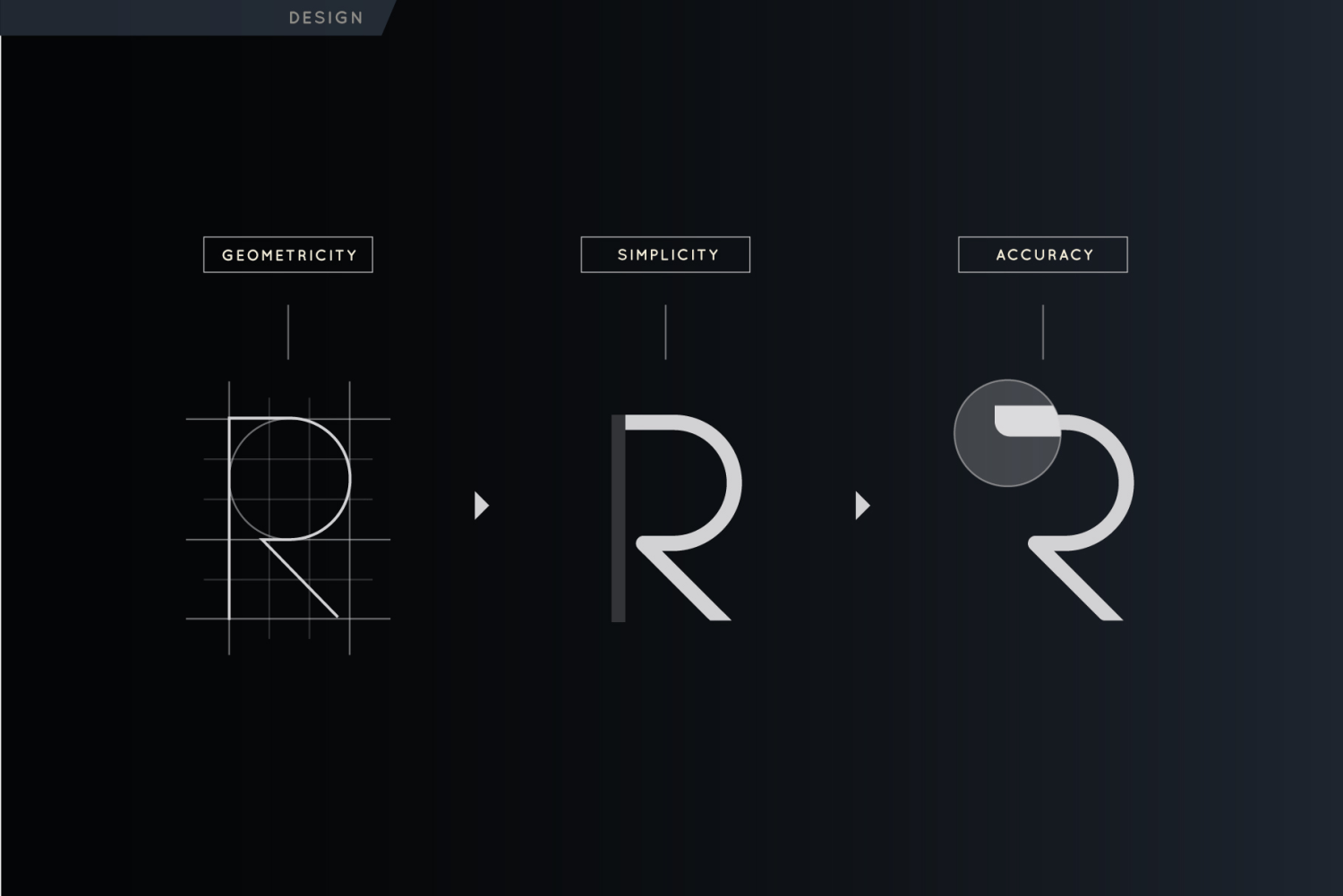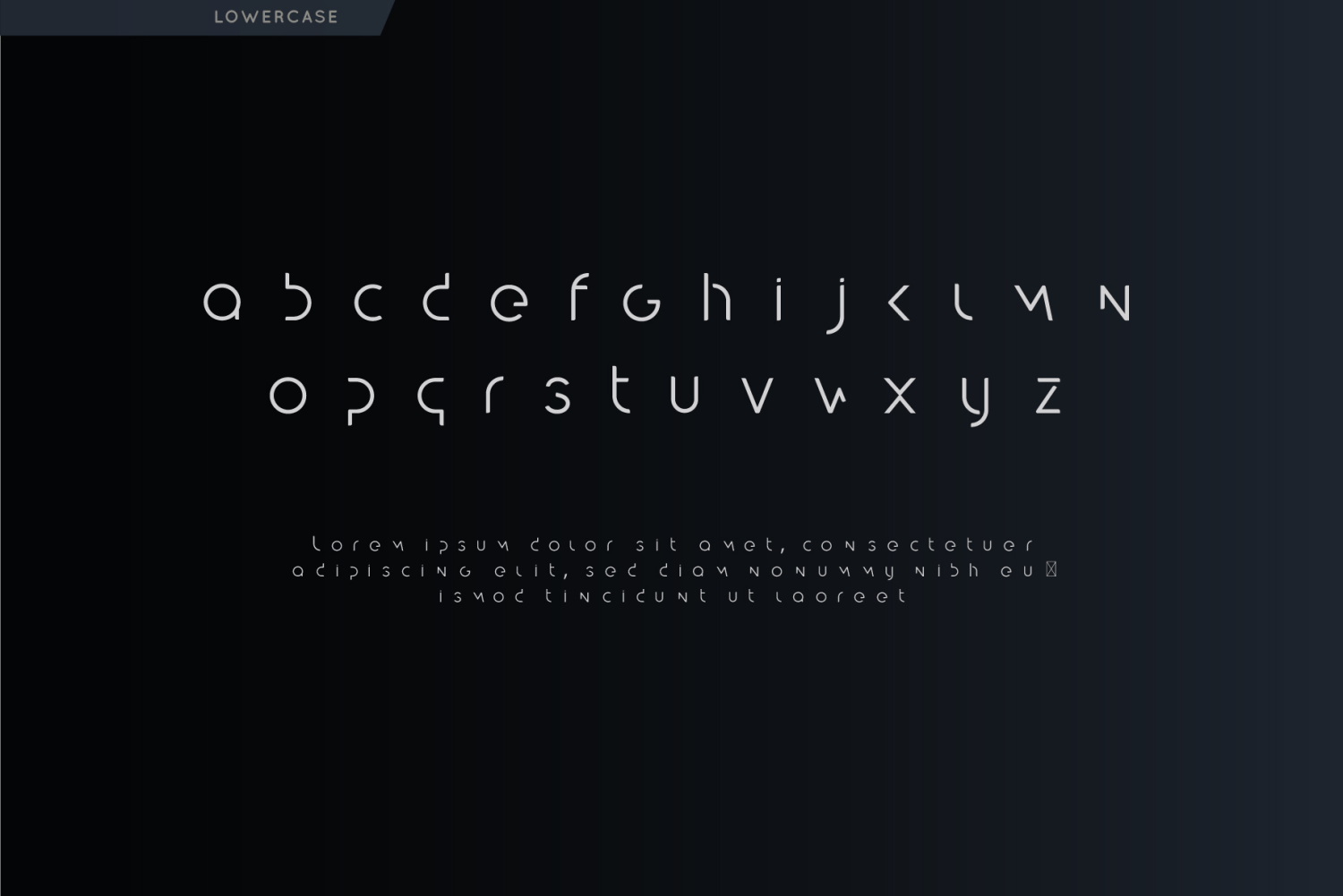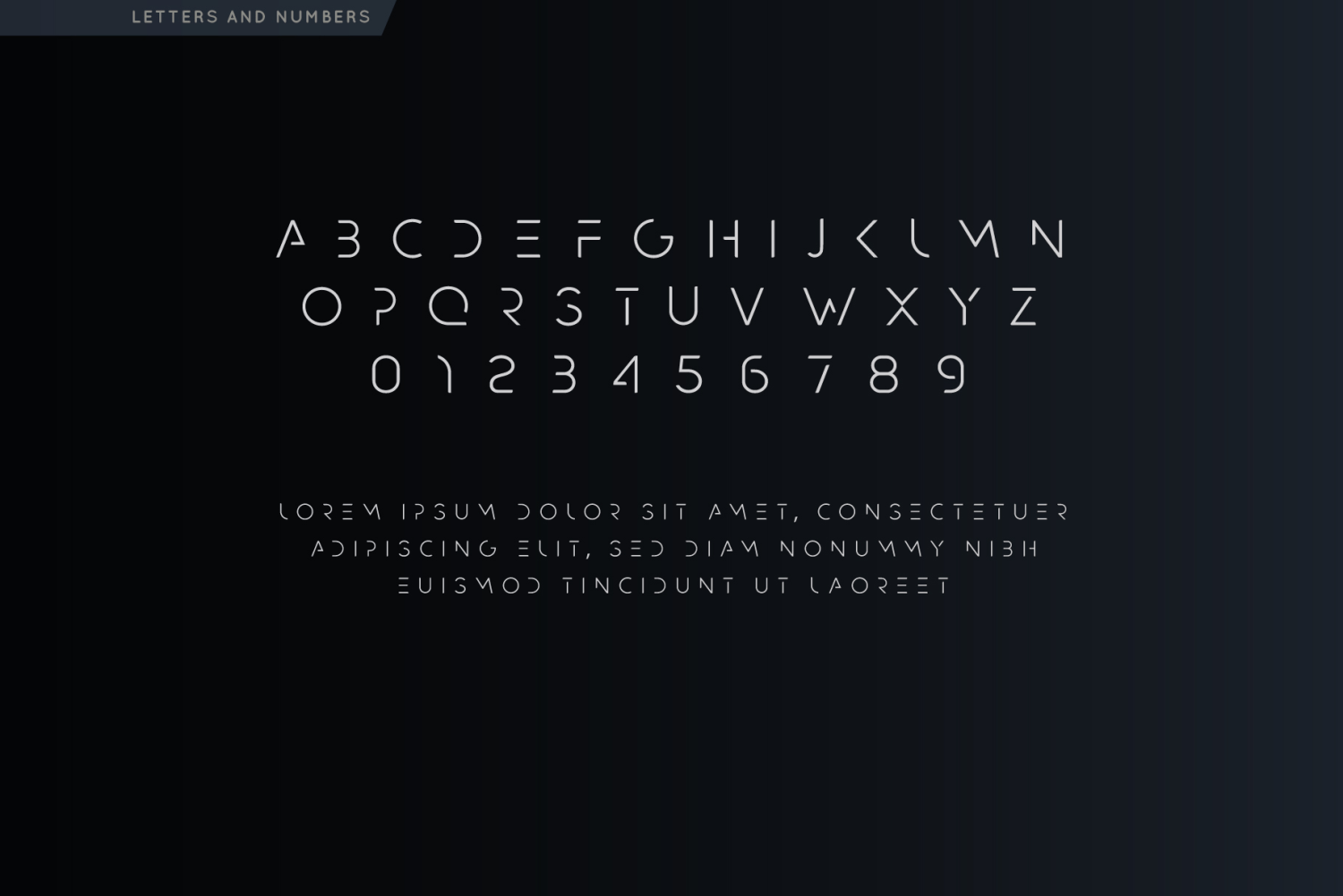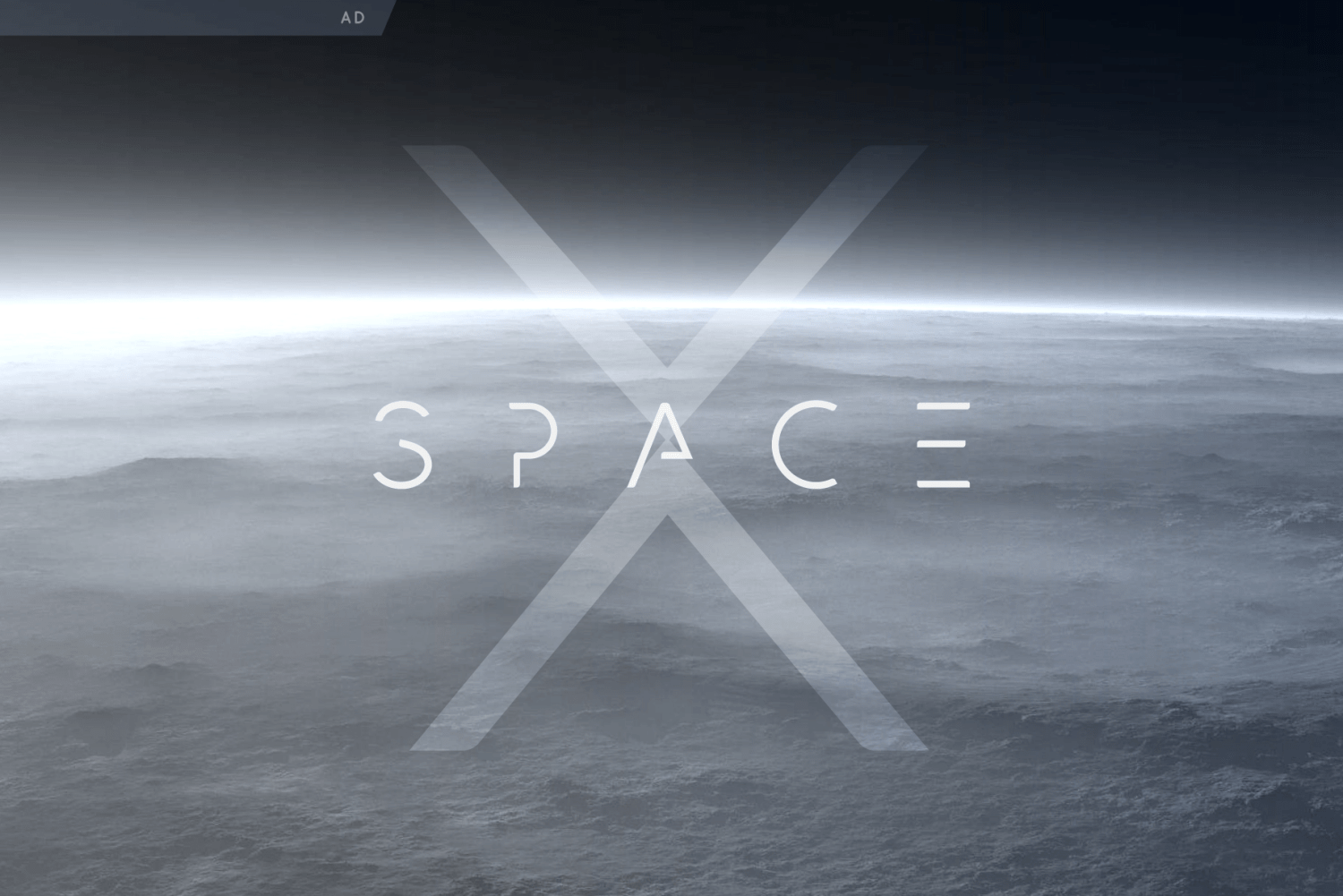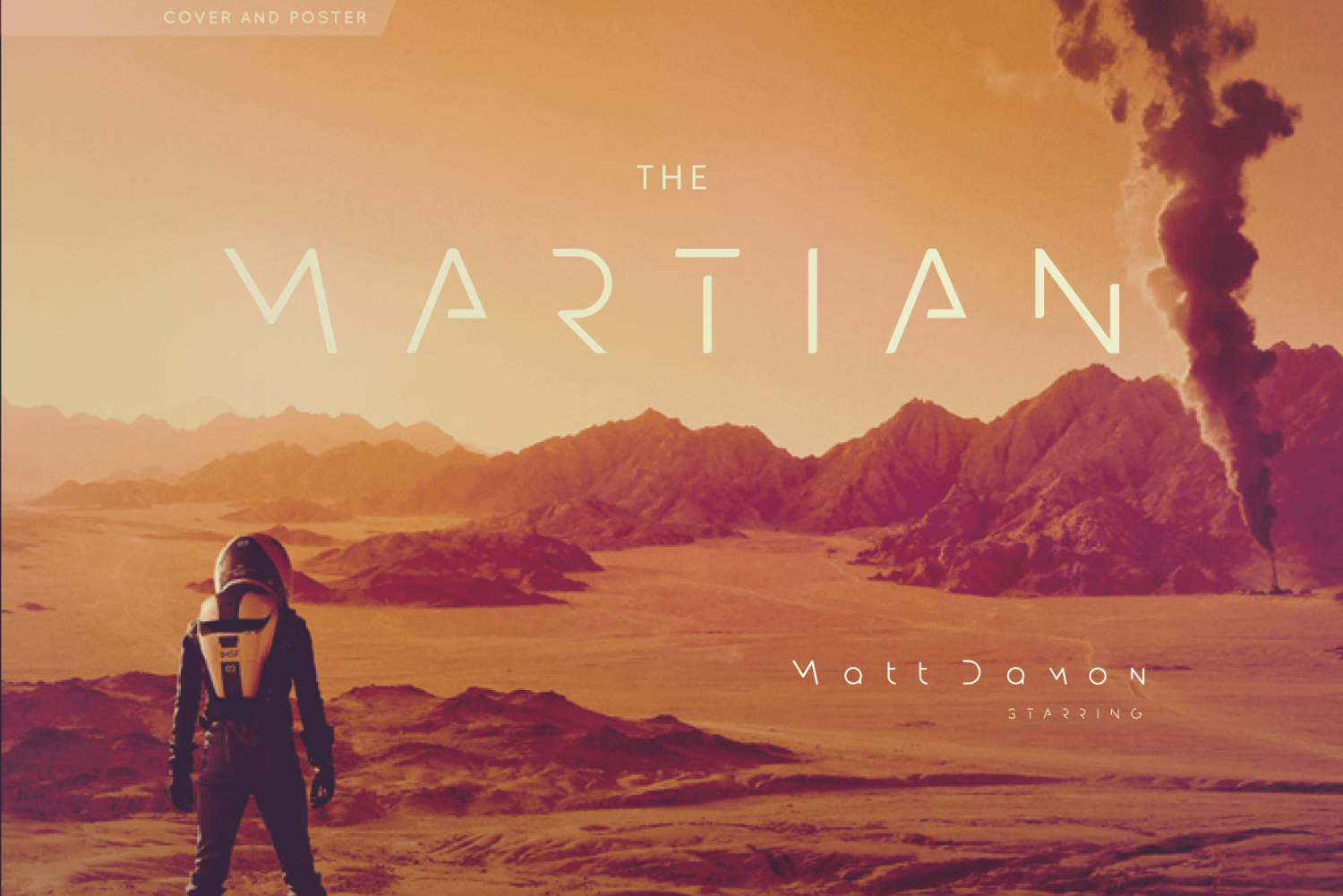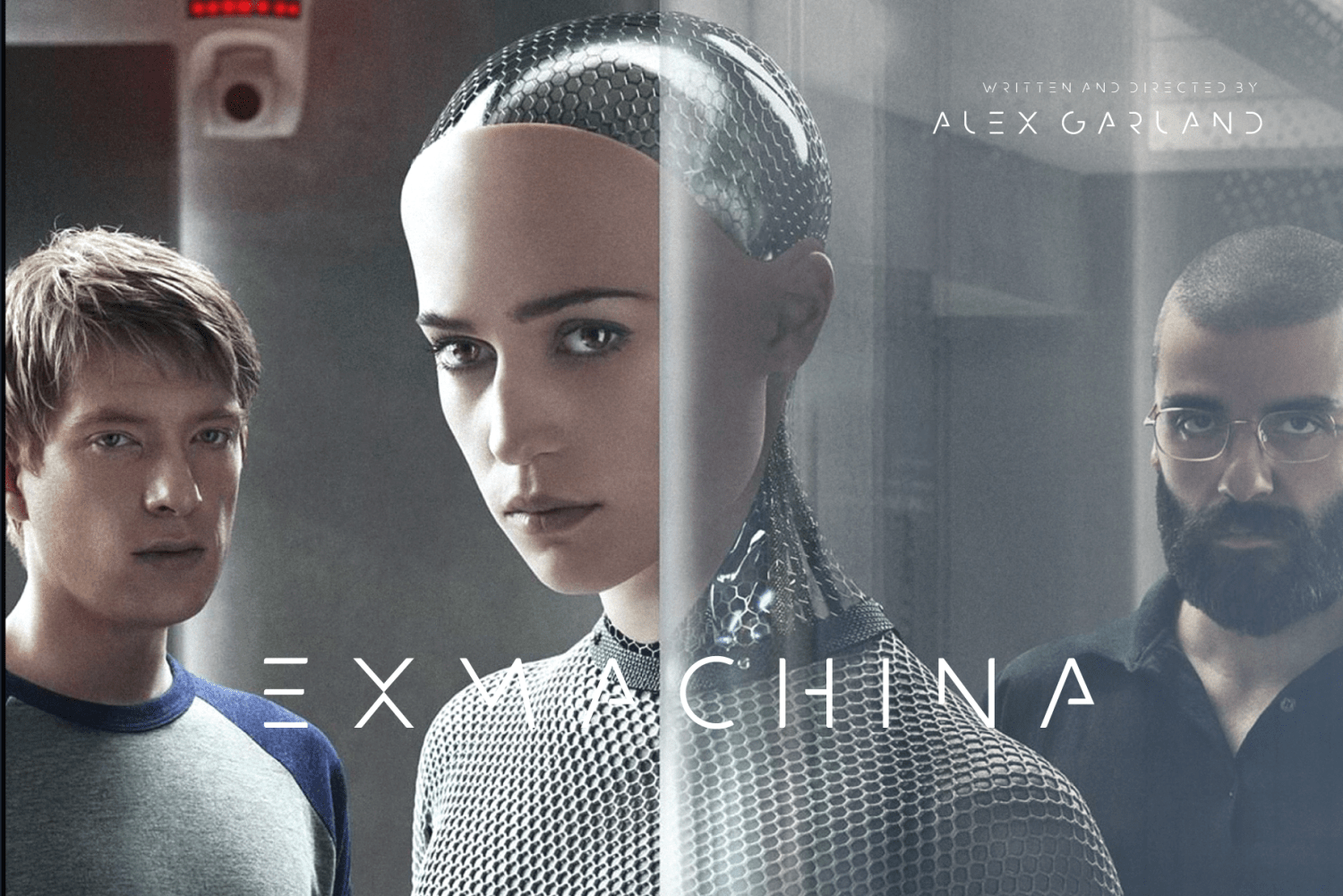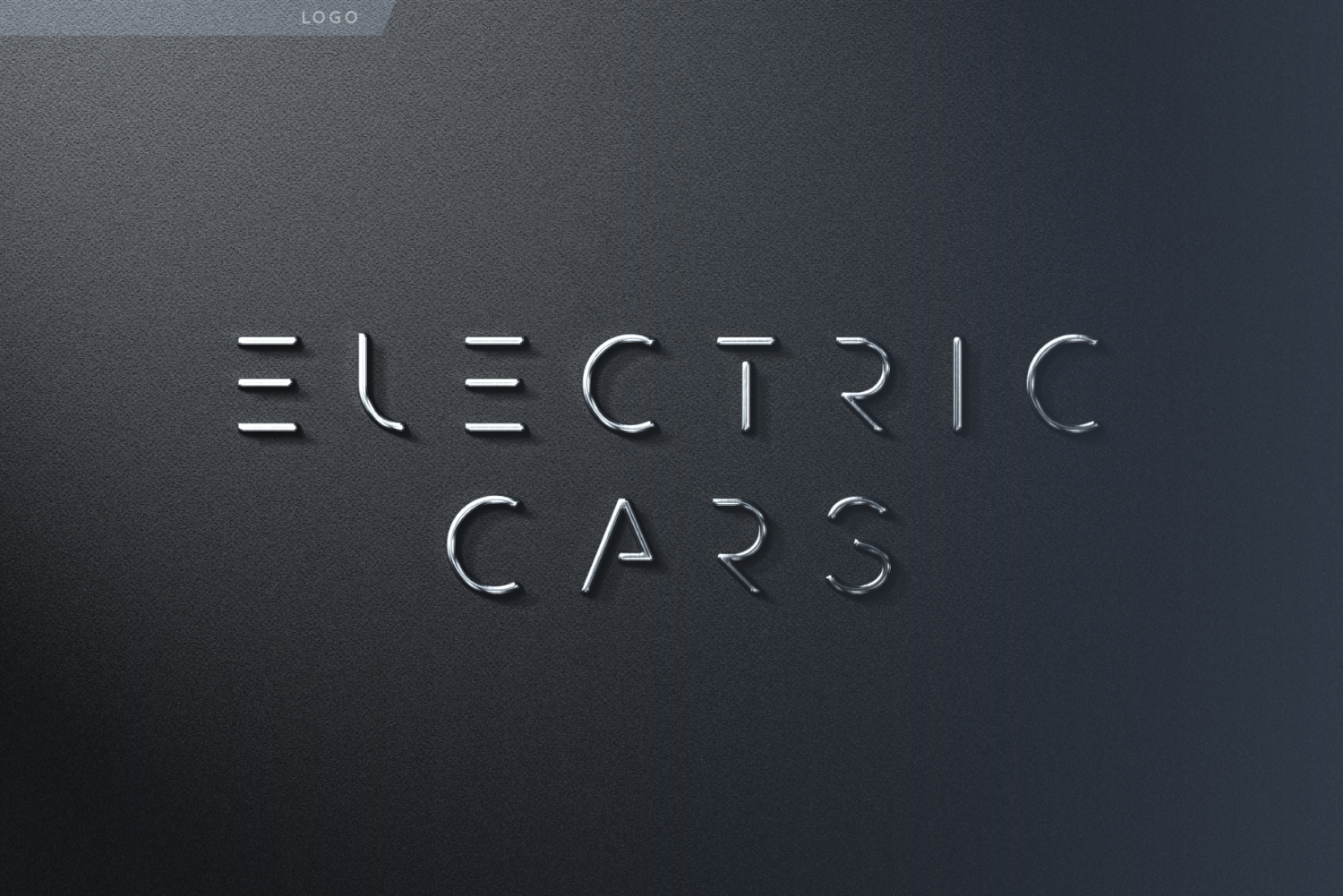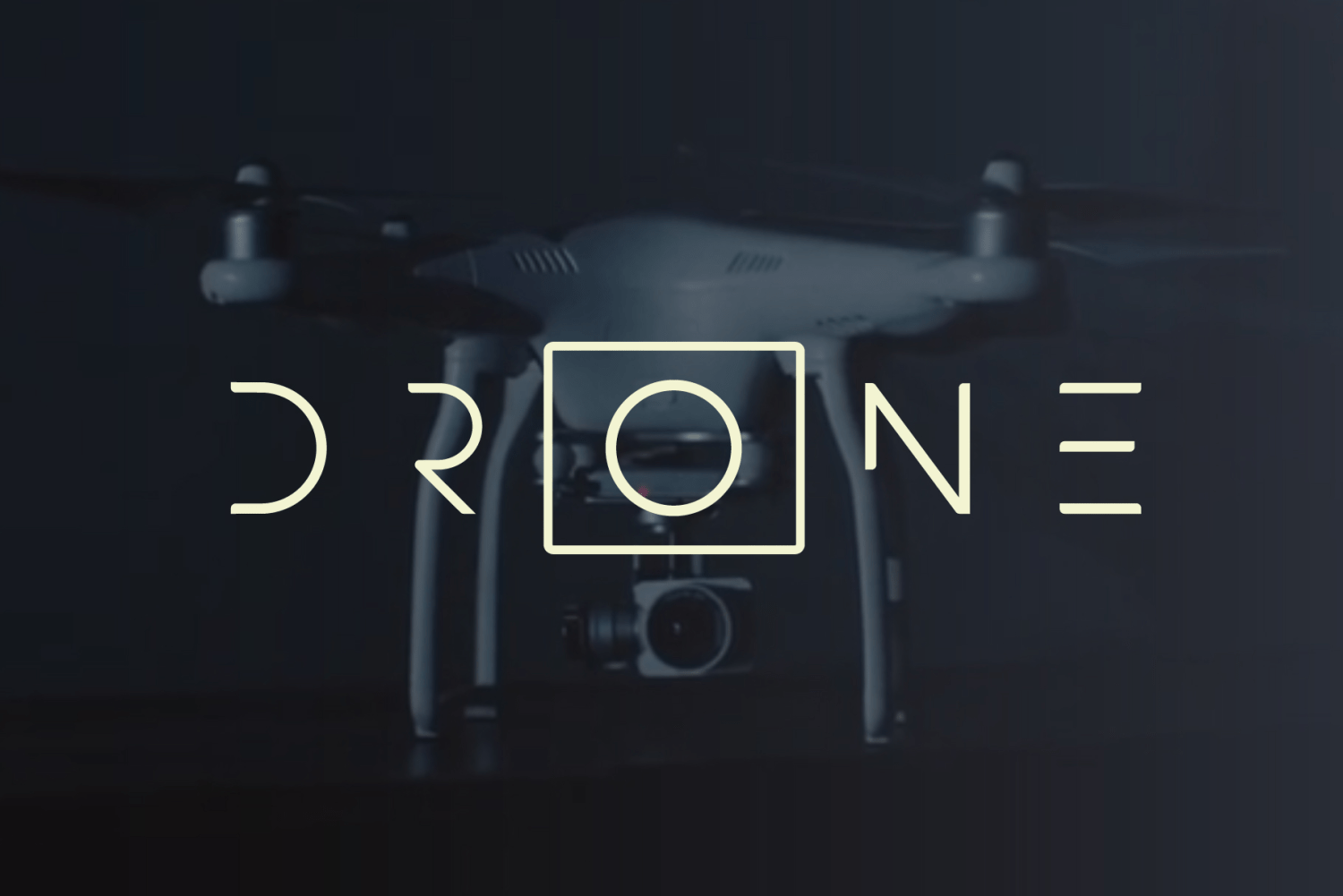
Futurism is a minimal geometric display font designed for science fiction, technology, aerospace and modern visual identities. Its thin monoline construction, open letterforms and carefully simplified shapes create a clean, elegant and distinctly futuristic appearance.
Futurism works especially well for technology logos, film titles, science-fiction posters, game graphics, editorial headlines, digital products, automotive branding, interfaces and contemporary packaging. Its light structure and generous spacing are ideal for refined compositions that need a sense of innovation, precision and advanced technology.
The font includes uppercase and lowercase letters and numerals. It is intended primarily for short headlines, titles and distinctive wordmarks rather than long body text.